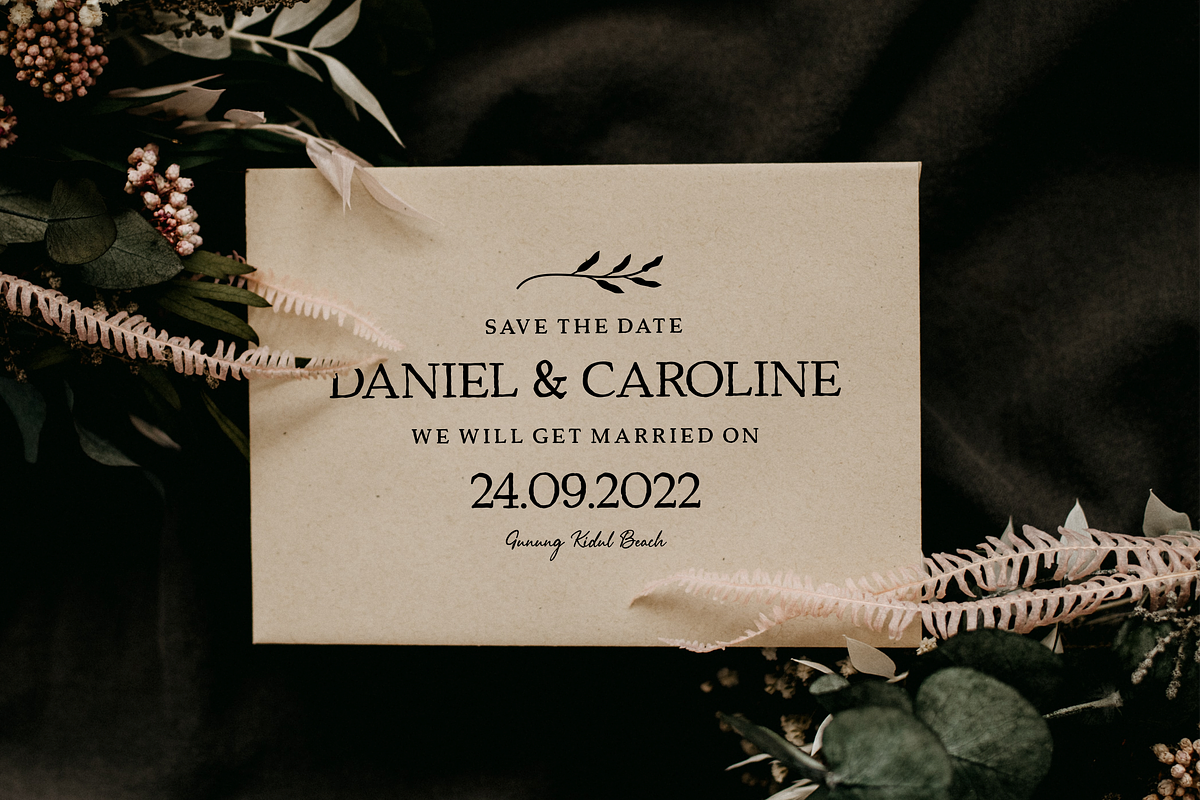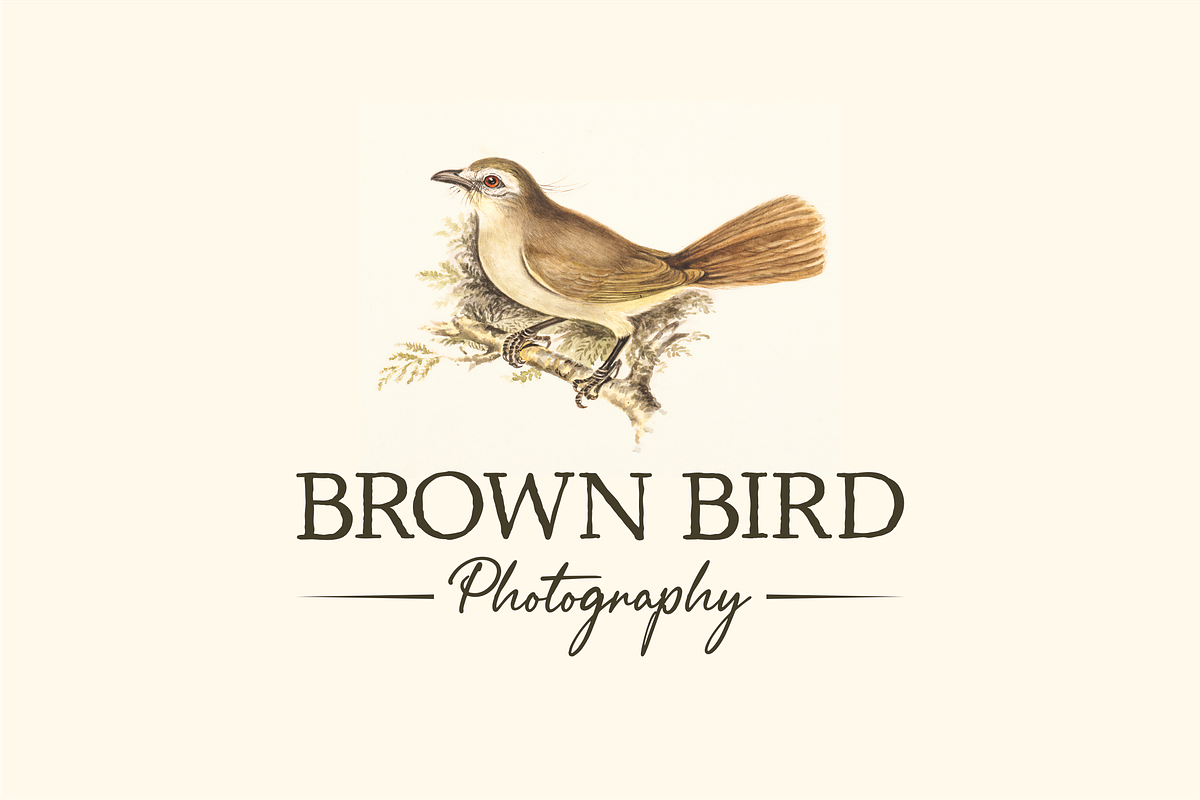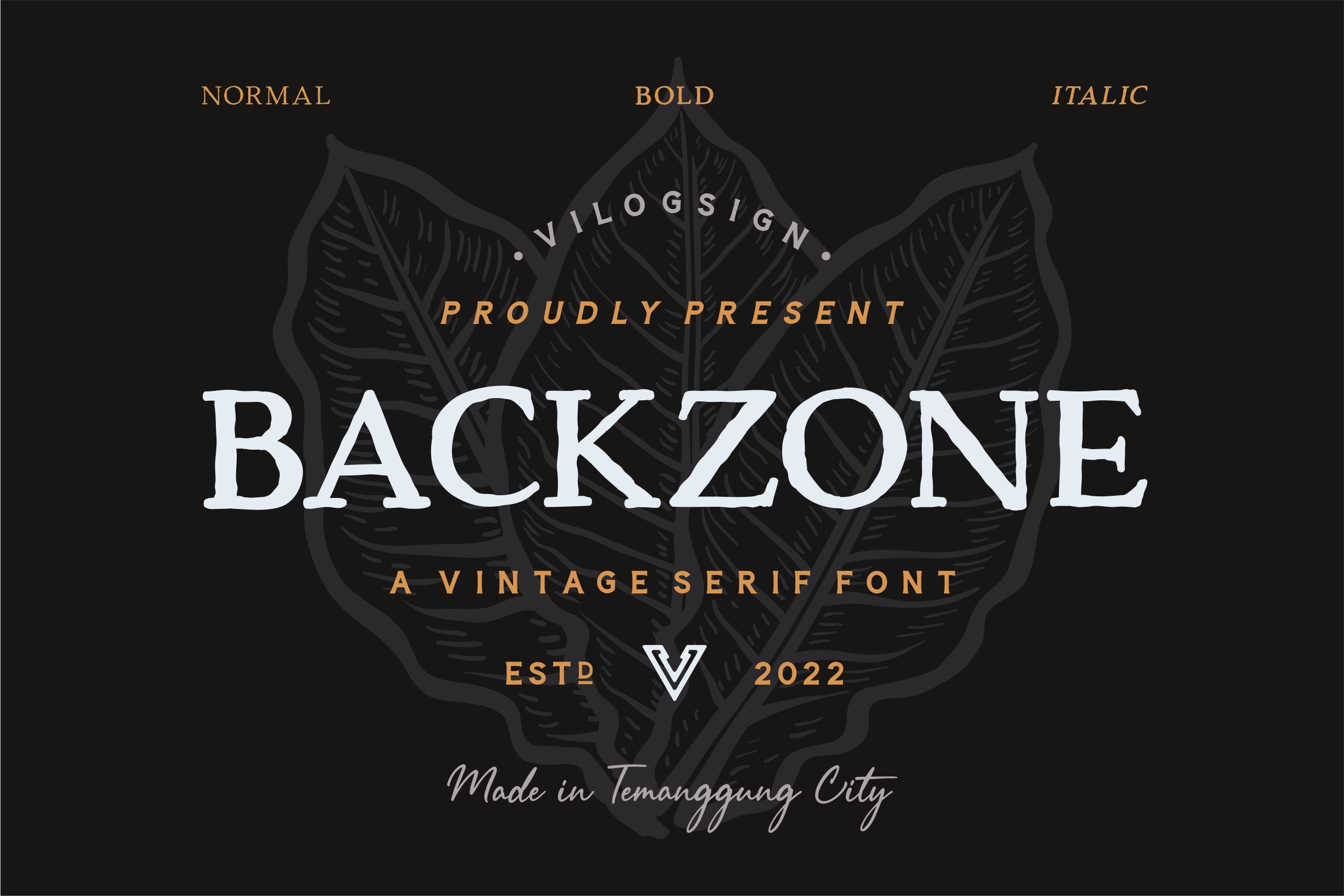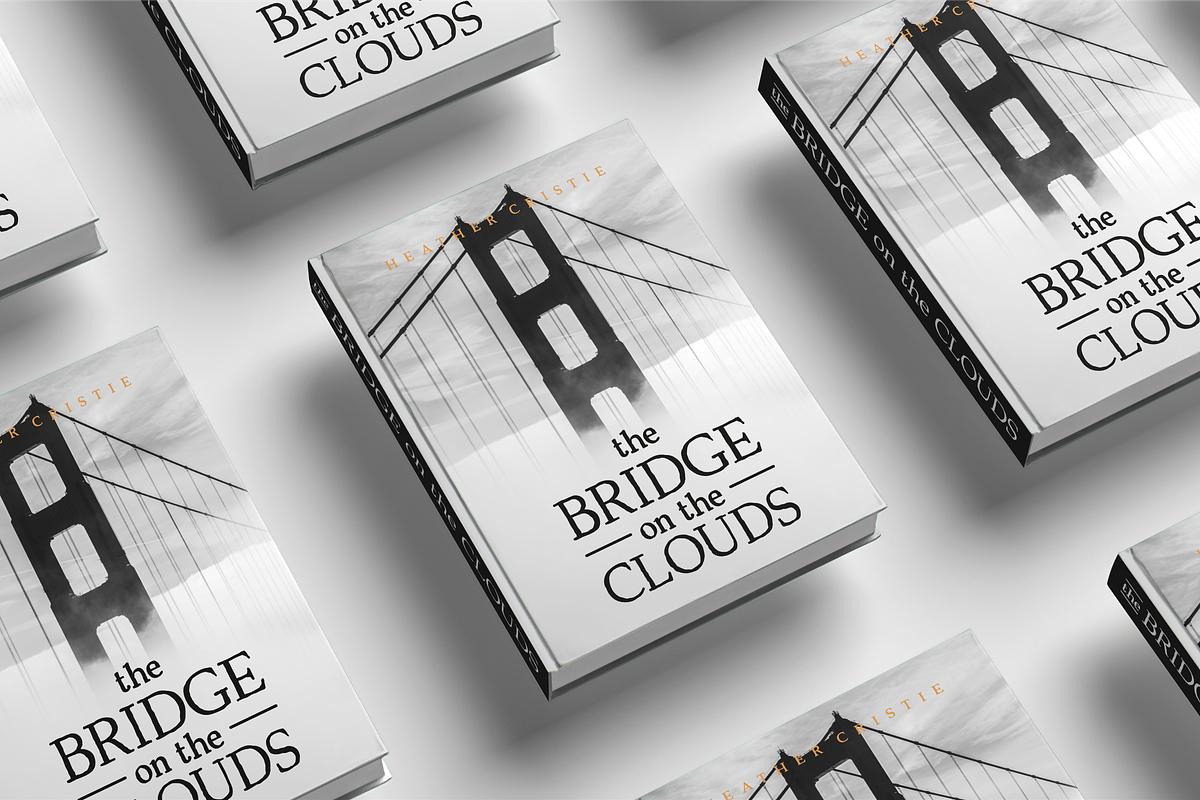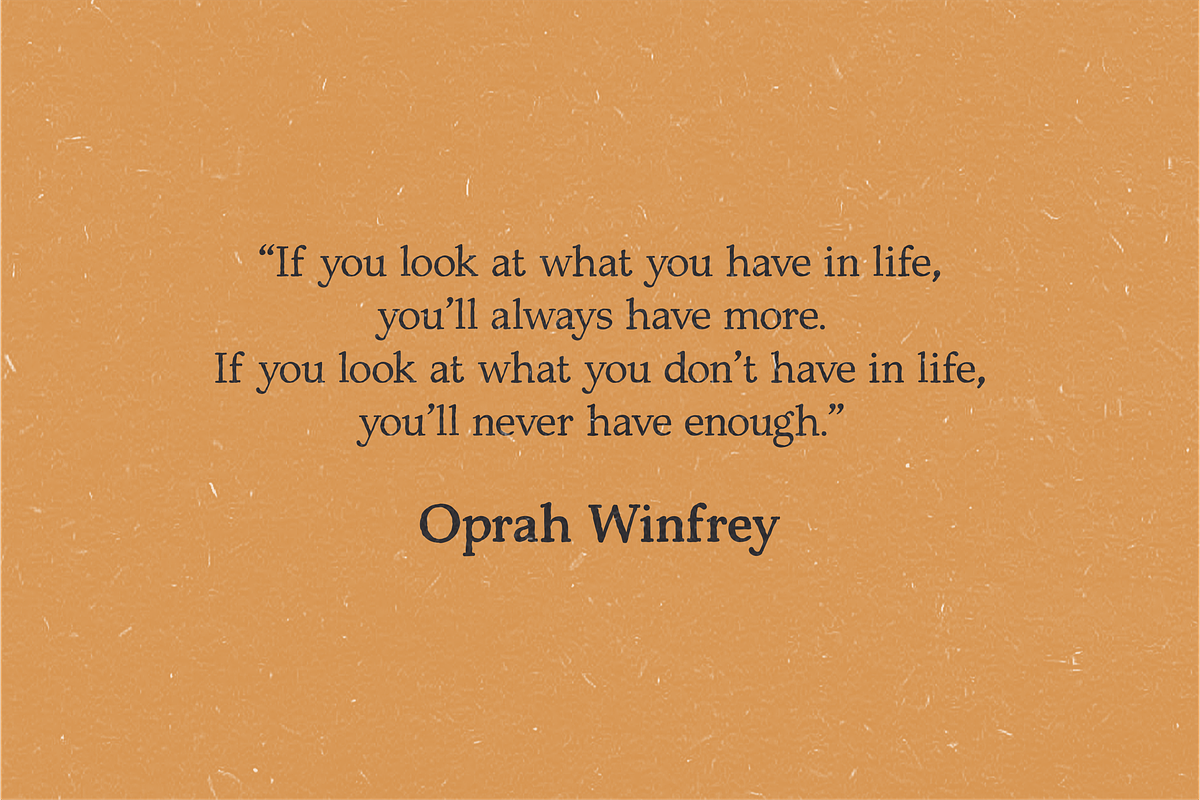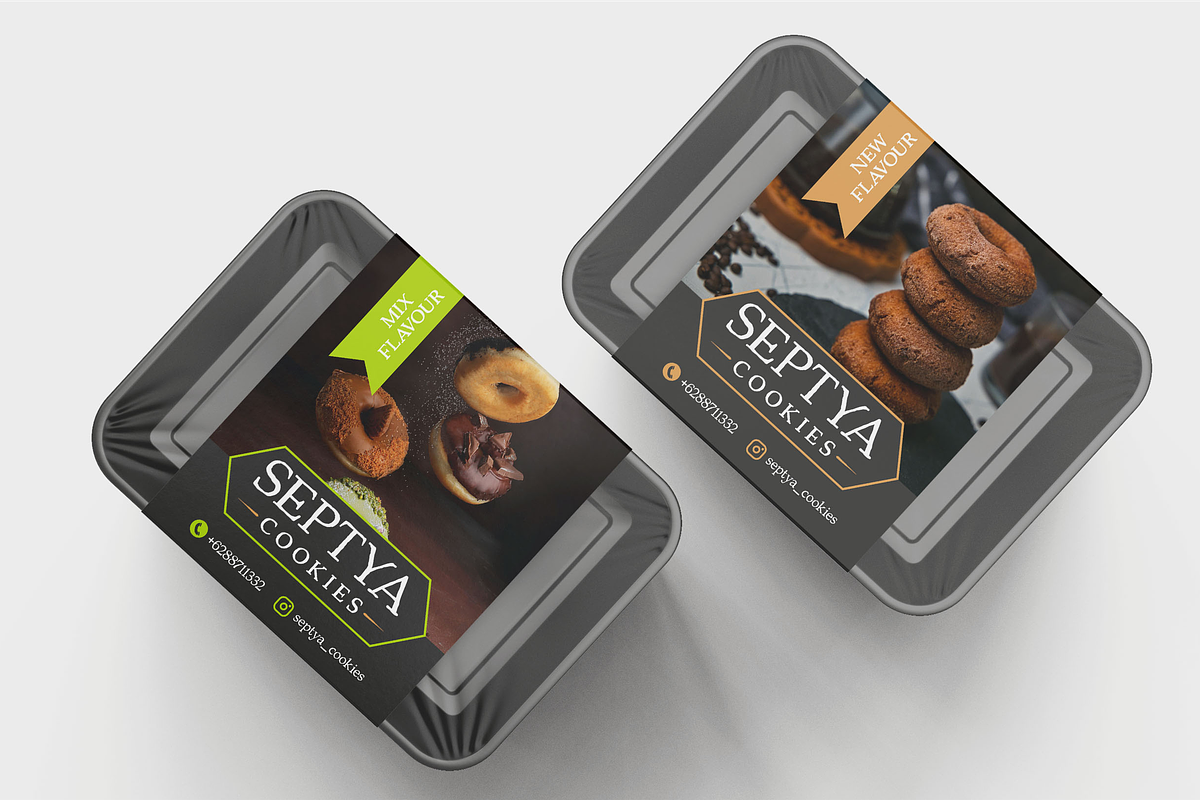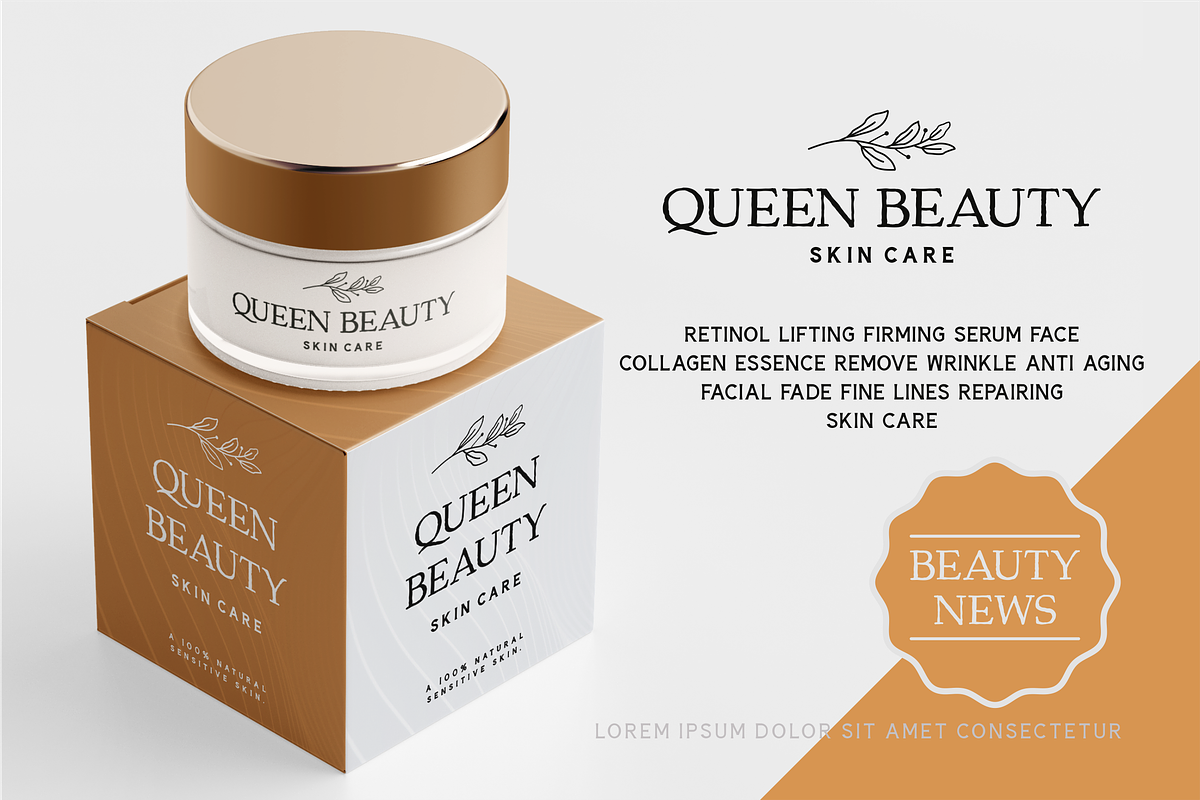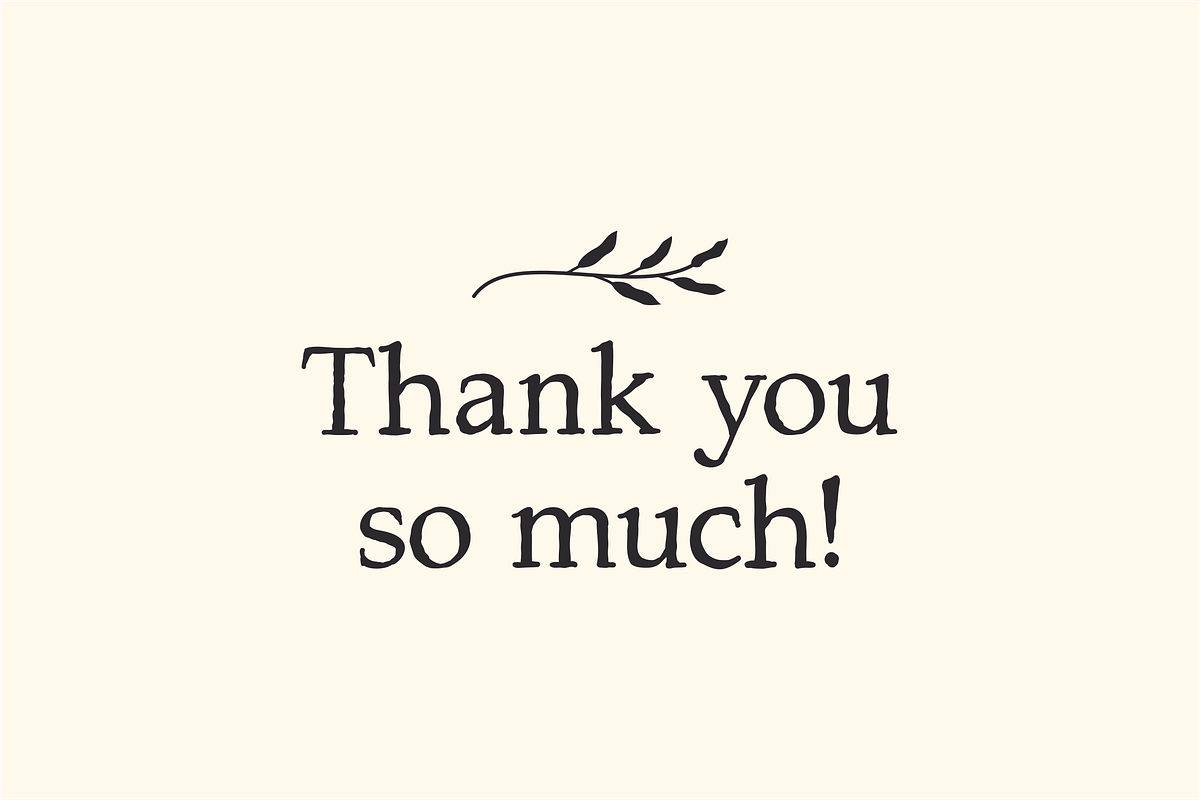
Backzone a Vintage Rustic Serif Font
Hi,,, Introducing "Backzone" a Vintage Serif Font!!!
Backzone font is a Serif font which a touch of vintage look and feel. This type of font perfectly made to be applied especially in logo, Branding, and the other various formal forms such as invitations, labels, logos, magazines, books, greeting / wedding cards, packaging, fashion, make up, stationery, novels, labels or any type of advertising purpose. This font is very amazing with multilingual support and Vector logo template to complete your need.